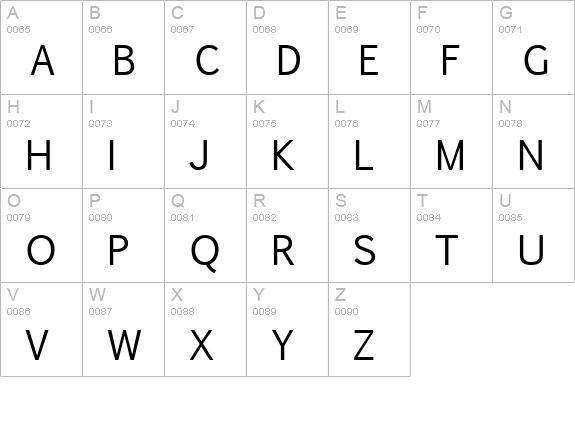
Pigiarniq Font Details
Pigiarniq Font is a stunning display typeface that combines modernity with a hint of traditional elegance. With its bold and unique letterforms, this font is perfect for adding a touch of sophistication to any design project. Whether it's branding, advertising, or editorial design, Pigiarniq Font will effortlessly catch the eye and leave a lasting impression. What sets Pigiarniq Font apart is not just its remarkable aesthetics, but also its accessibility. This font is freely available to download at FontsMarket.com, making it an ideal choice for designers on a budget or those who simply appreciate the value of a good, high-quality font. By offering Pigiarniq Font for free, the creators have ensured that everyone can enjoy its beauty and versatility, without any limitations or barriers. The versatility of Pigiarniq Font is evident in its extensive character set, including uppercase and lowercase letters, numerals, punctuation, and multilingual support. This means that regardless of the language or design concept, Pigiarniq Font can be easily adapted to suit any project's needs. The clean lines and intricate details of Pigiarniq Font make it a mesmerizing choice for various applications, from headlines and titles to logos and branding materials. Its versatility and timeless appeal make it suitable for both digital and print projects, ensuring that your design will always make a strong visual impact. Embrace the beauty and modernity of Pigiarniq Font in your next design venture. Download it for free at FontsMarket.com and unlock a world of creative possibilities. With Pigiarniq Font, your designs will stand out from the crowd and captivate audiences with its unique charm and elegance.